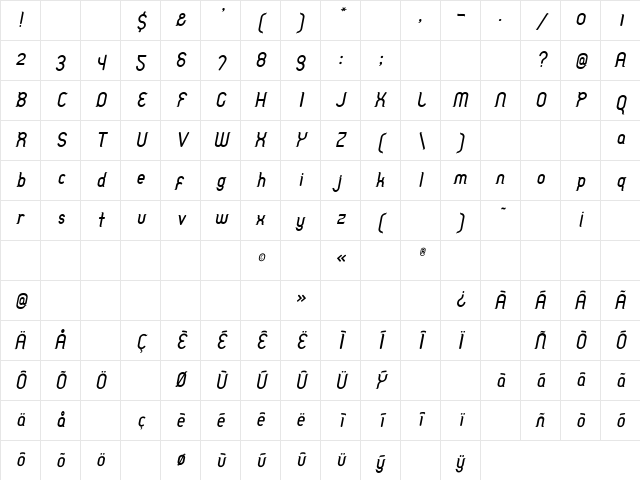
TableManners Italic
Foundry: Rebels/ - . Designed By Robert Beck (WordWear)
Design Context for TableManners
TableManners is a composed and adaptable typeface that performs quietly and consistently across a wide range of design contexts. The slanted form adds forward momentum and visual energy.